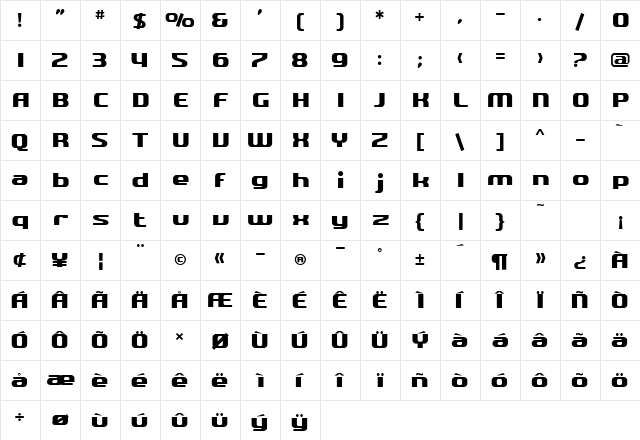
SF Quartzite Regular
Design Context for SF Quartzite Typeface
SF Quartzite offers clean, dependable letterforms without strong stylistic allegiance, making it a practical choice for designers who need flexibility.